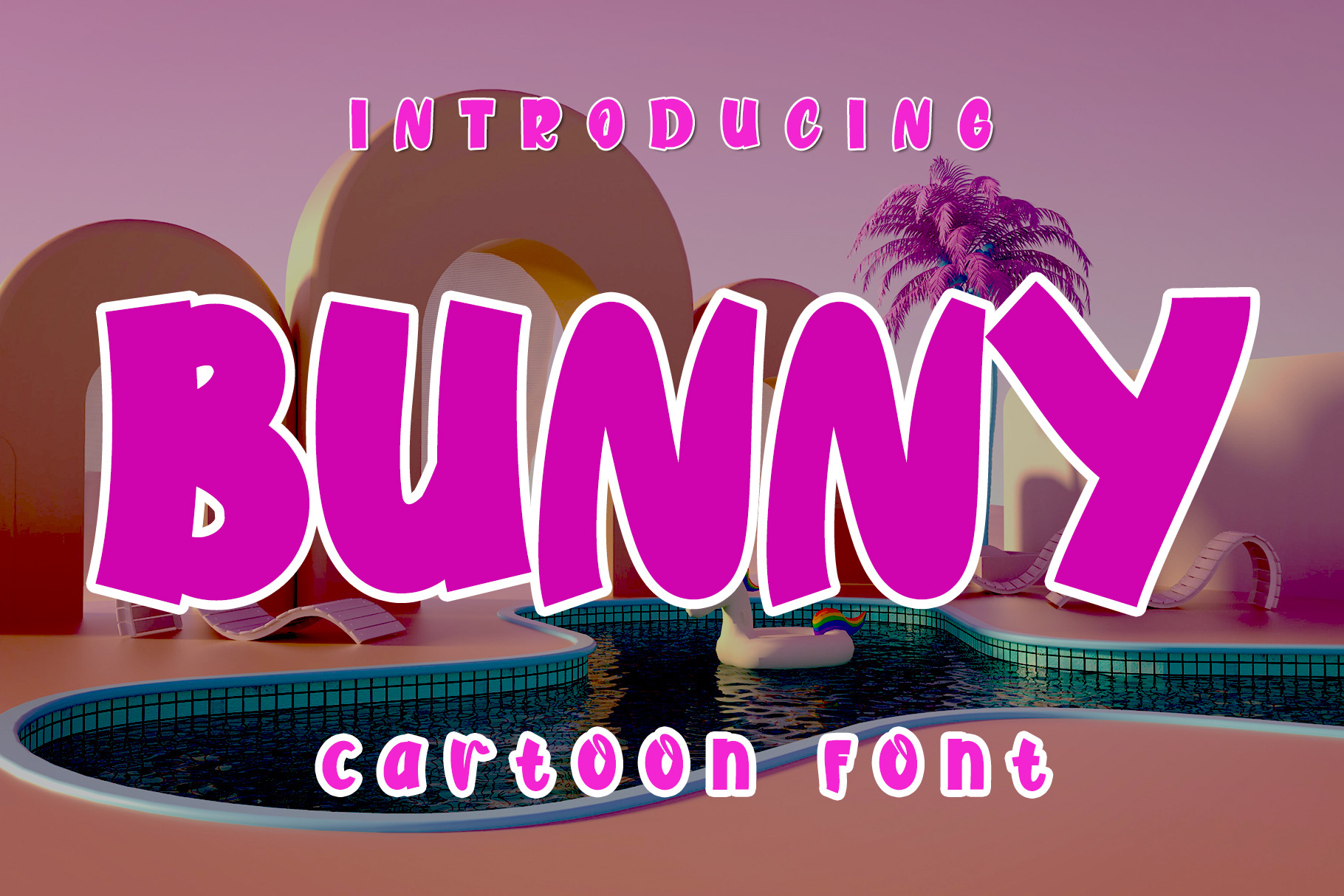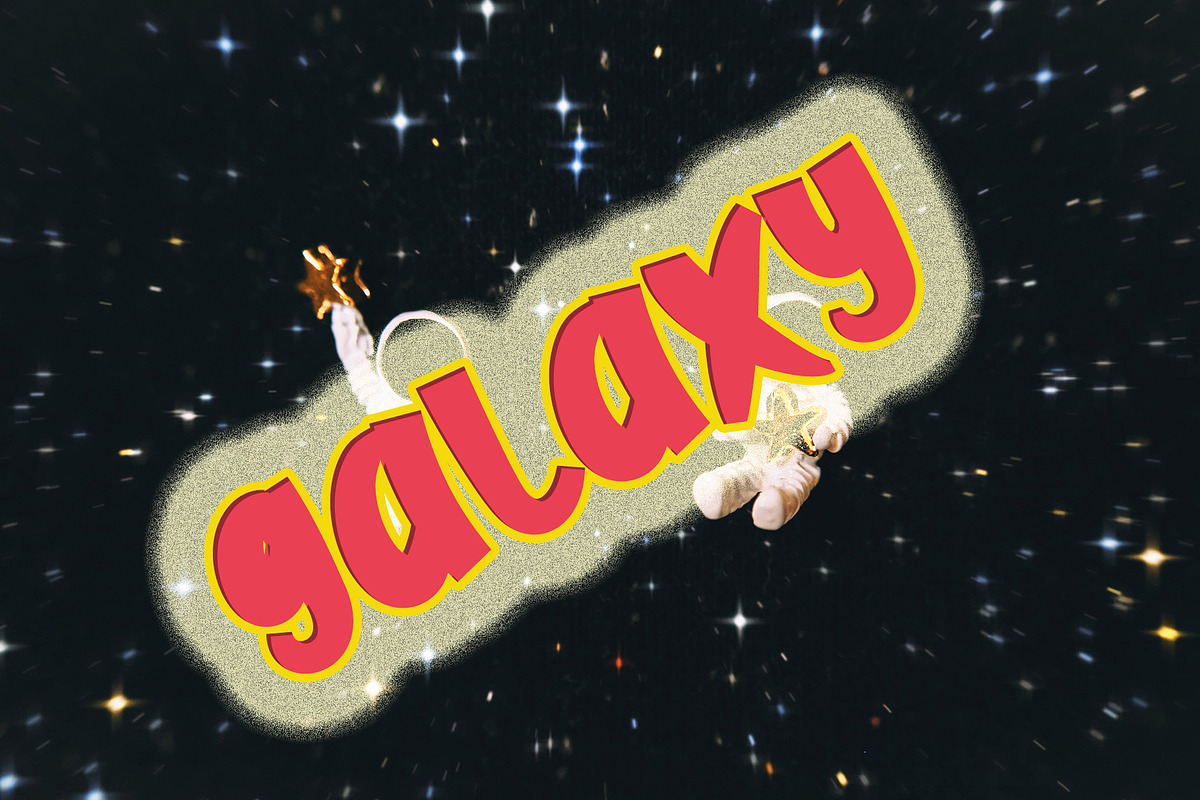
Bunny Bold – Cute Cartoon Font
Say hello to Bunny Bold, a thick, cheerful sans serif font that’s bursting with personality! With its soft edges and playful proportions, Bunny Bold is made to bring joy and clarity to your most colorful projects. This fun-loving typeface is perfect for cartoons, comic books, YouTube content, kids’ products, and anything that needs a bold yet friendly touch.
Whether you're designing for social media, branding a fun product, or creating an eye-catching title, Bunny Bold gives you the perfect mix of charm and boldness. Its clean sans-serif structure keeps it readable, while the quirky style ensures it stands out across screens and print.
Cartoon & comic book titles
YouTube thumbnails & channel branding
Instagram, Facebook & Twitter content
Kids’ products, books, games & apps
TV shows, entertainment branding & intros
Company names & startup logos
Posters, merchandise, and more
Thick & Friendly Style – Fun, bold sans serif that’s easy to read and hard to ignore
Kid-Friendly Charm – Perfect for playful, creative, or youth-oriented designs
Versatile for Digital & Print – Ideal for content creators, designers, and product makers
Screen-Optimized – Looks sharp and happy on any platform
Bunny Bold is the ultimate feel-good font—brighten up your design with a bold dose of fun!